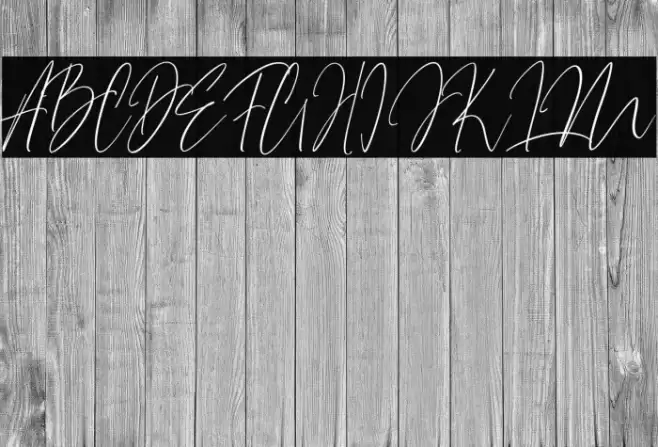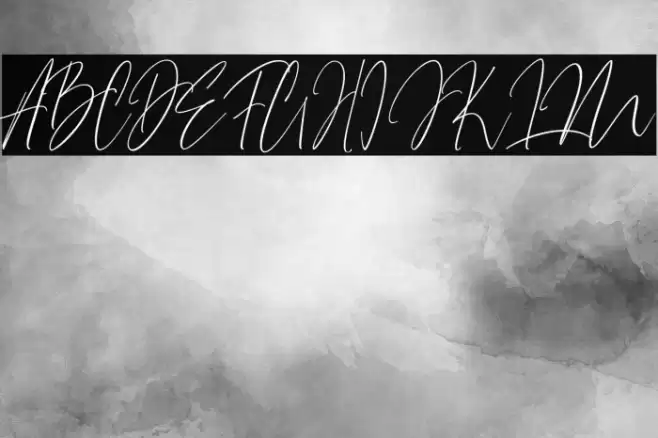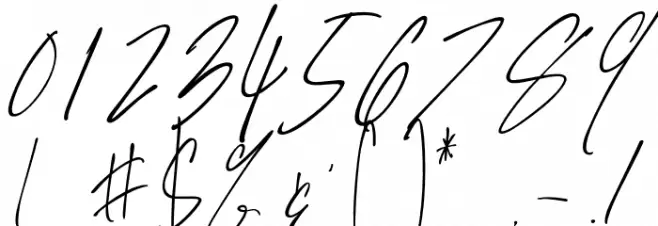
BitterMind Font
BitterMind Description
This font exudes a sense of elegance and fluidity, characterized by its cursive, handwritten style. The letters are interconnected with smooth, flowing strokes that mimic natural handwriting. The uppercase letters are tall and slender, while the lowercase letters maintain a consistent flow with subtle variations in height. The numerals and special characters are crafted with the same attention to detail, providing a cohesive look throughout. The overall appearance is sophisticated yet approachable, making it suitable for projects that require a personal touch.
Elegant cursive font with fluid, interconnected strokes from Uncategorized fonts.
- Proposed Projects: Ideal for wedding invitations, personal branding, greeting cards, and elegant stationery.
- Character Spacing: Tight
- Overall Style: Elegant
- Use Case: Logos, Invitations, Personal Branding